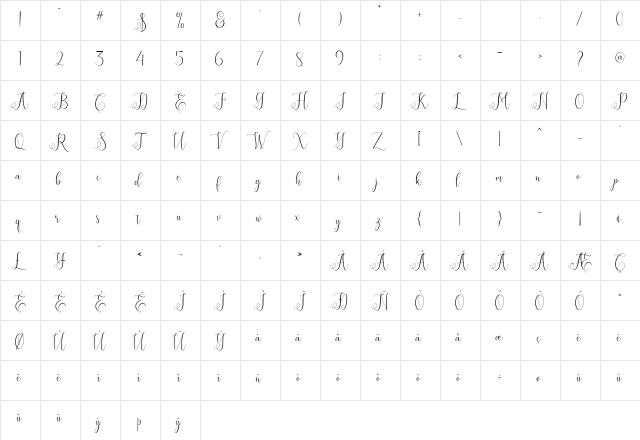
Eritta Script Regular
| Foundry | Amarlettering_Kamaruddin |
| Designer | Amarlettering_Kamaruddin |
Design Context for Eritta Script Typeface
Eritta Script brings a calligraphic fluidity to the page — its connecting strokes and expressive curves give it an unmistakably human quality.
Font Pairing: Combine Eritta Script with a simple geometric sans for maximum contrast — the tension between flowing curves and clean structure is a classic typographic pairing.
Pro Tip: Pair Eritta Script with a clean sans-serif for supporting text. The contrast between fluid script and geometric structure creates an elegant typographic hierarchy.